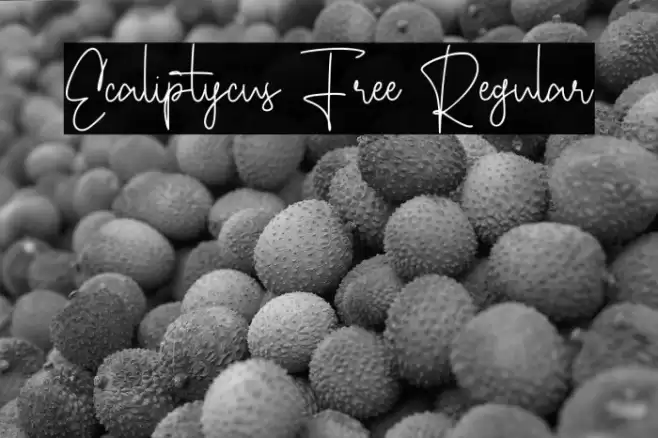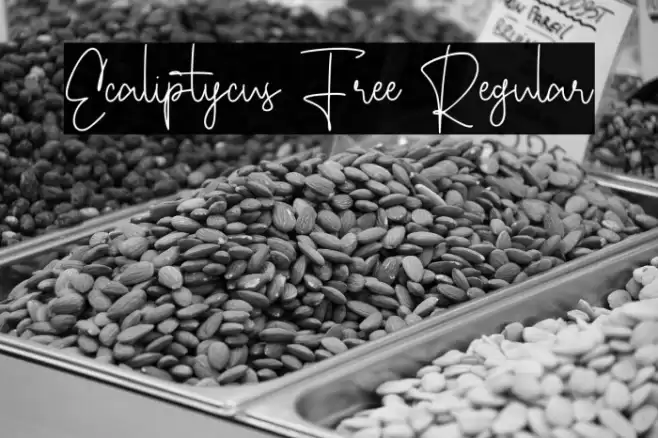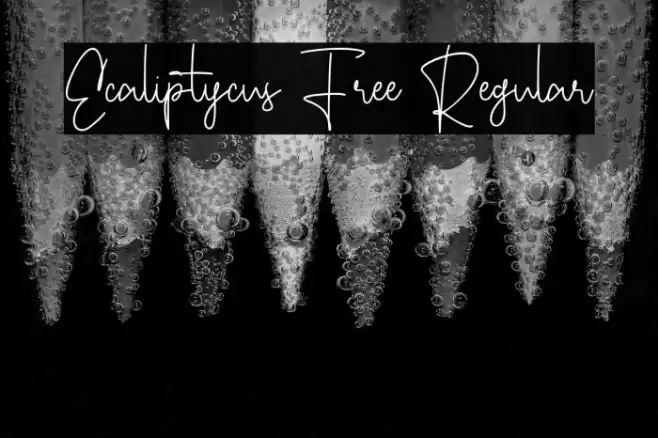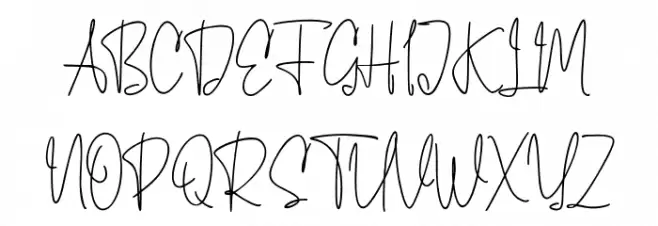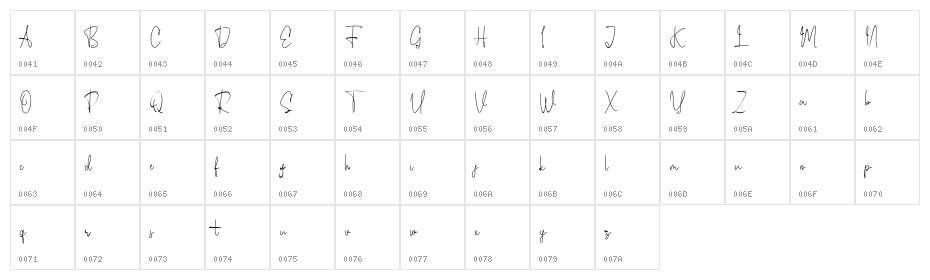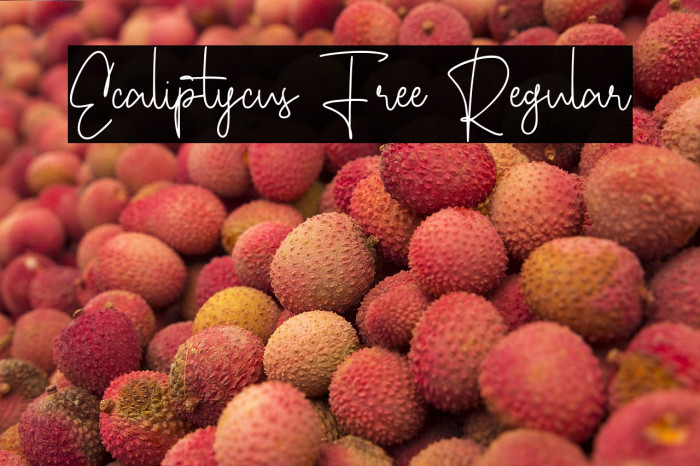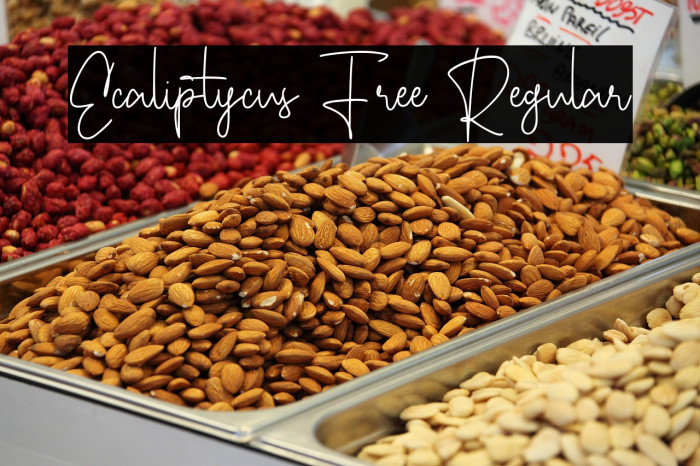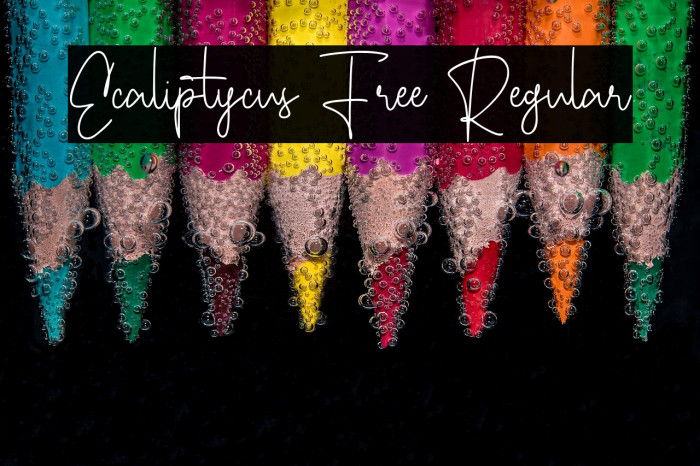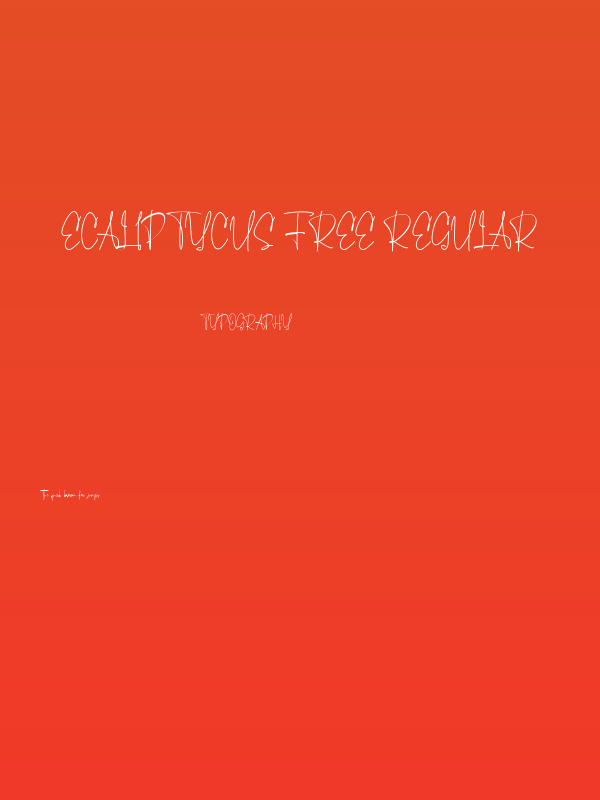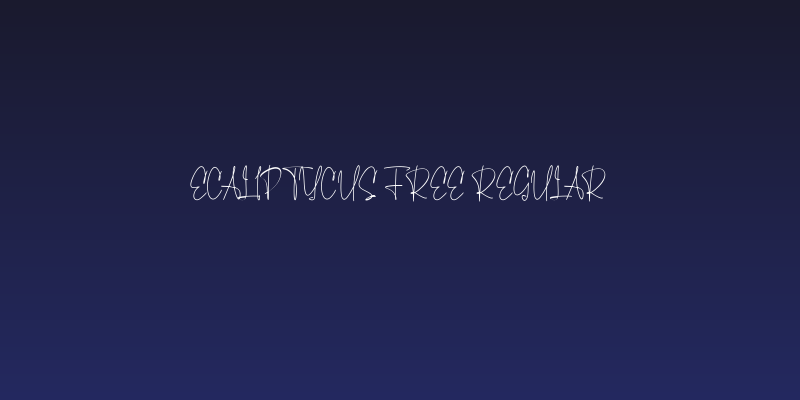
Ecaliptycus Free Regular Font
Ecaliptycus Free Regular Description
This font features a whimsical, handwritten style with a playful and artistic flair. The letters are characterized by their flowing, cursive-like strokes that give an impression of being hand-drawn with a calligraphic pen. The uppercase letters are tall and elegant, with unique loops and curves that add a touch of sophistication. The lowercase letters maintain a consistent style, complementing the uppercase with their smooth and fluid lines. The overall appearance is both casual and refined, making it suitable for creative and expressive projects. The font's design is airy and light, with generous spacing between characters that enhances readability while maintaining its artistic charm.
A whimsical, handwritten font with flowing, cursive-like strokes and artistic flair from Regular fonts.
- Proposed Projects: Ideal for wedding invitations, greeting cards, personal branding, and creative design projects.
- Character Spacing: Wide
- Use Case: Logos, Headlines, Invitations